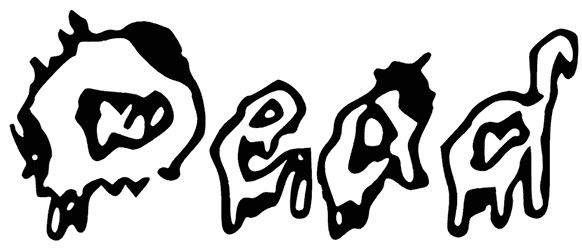
If you are trying to enrich texts for your forthcoming project with a salient face, take a look at this slime font. As a fancy font, Dead with its melted outline face could give your project an interesting and at the same time eerie mood. With Dead, you can show many designs like flyers, comics, game screens, or the like, and make them catchier.